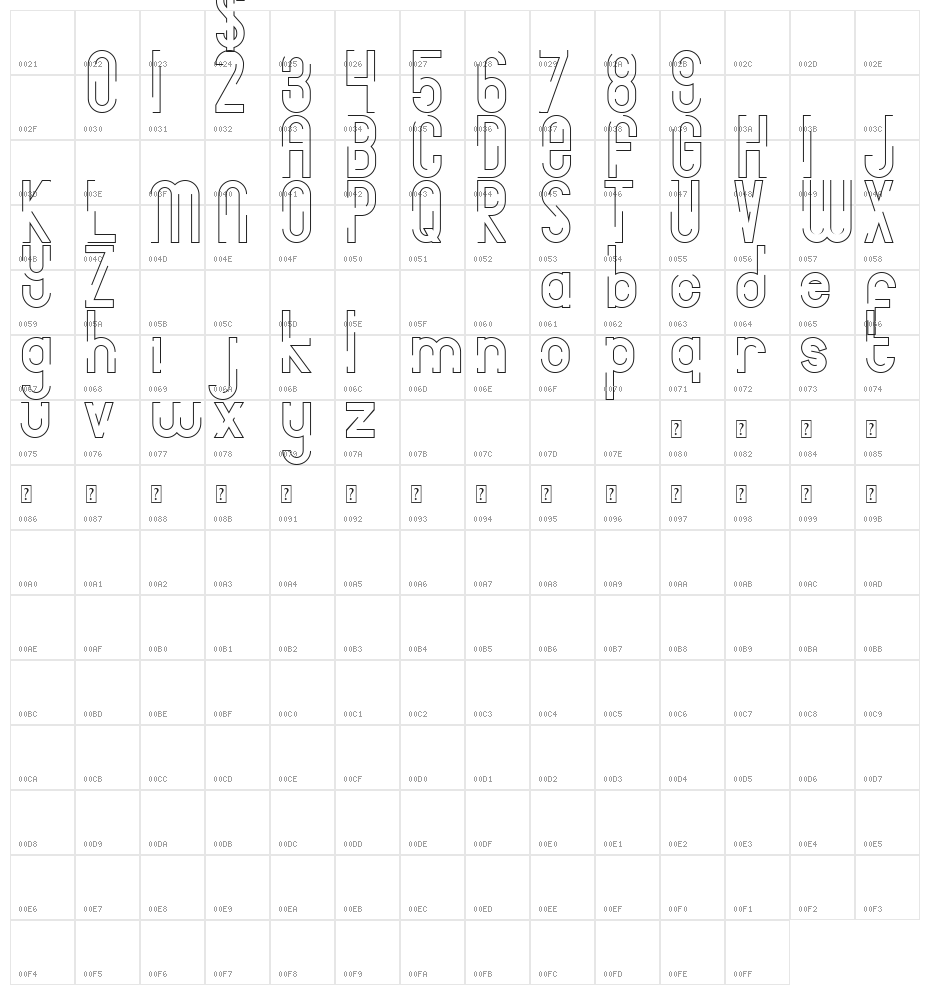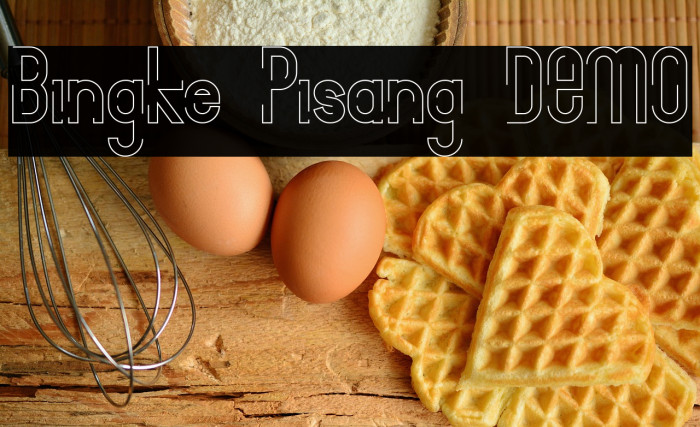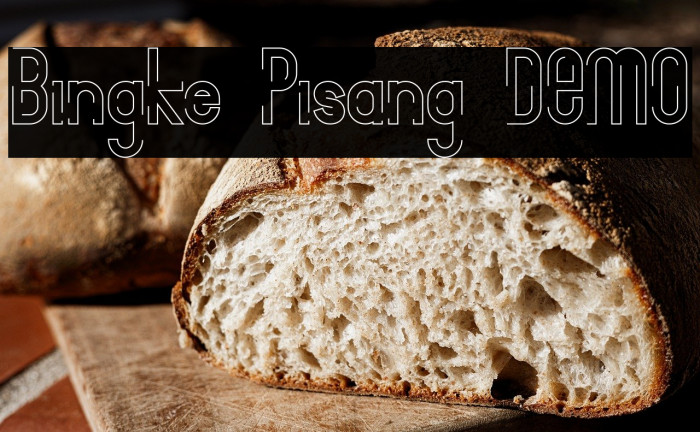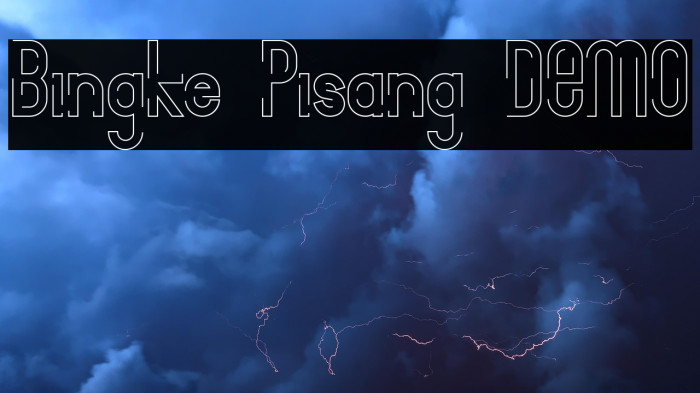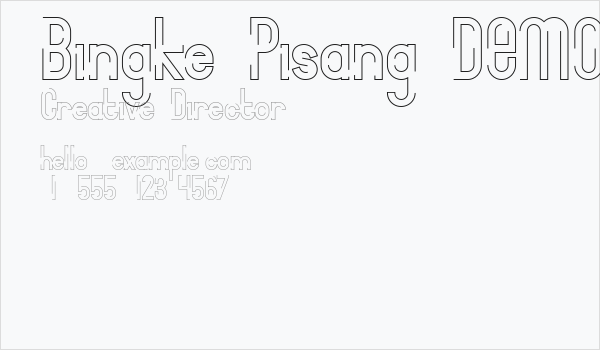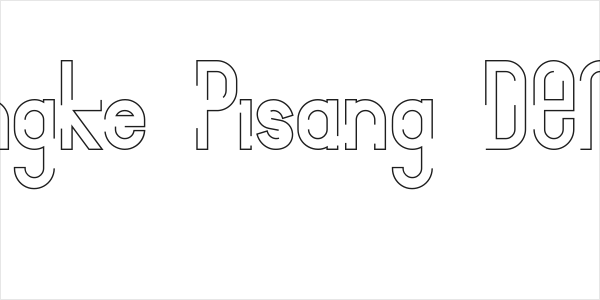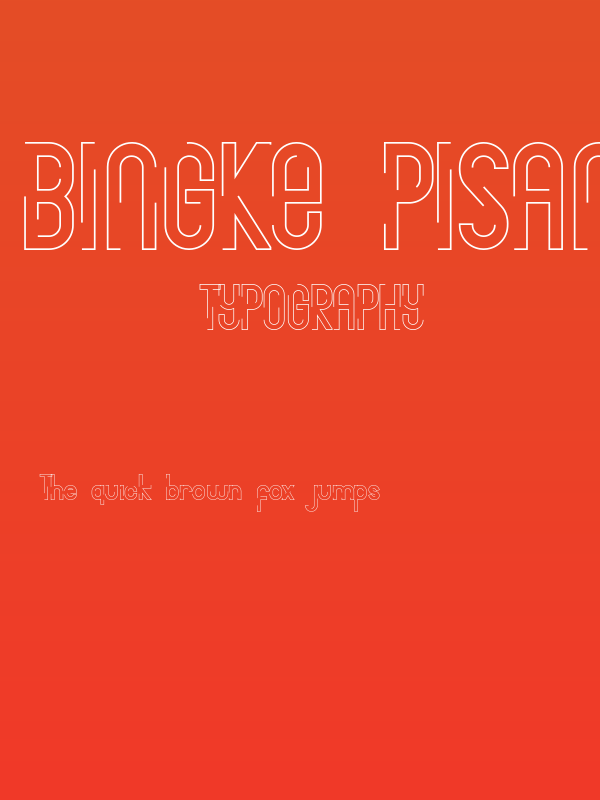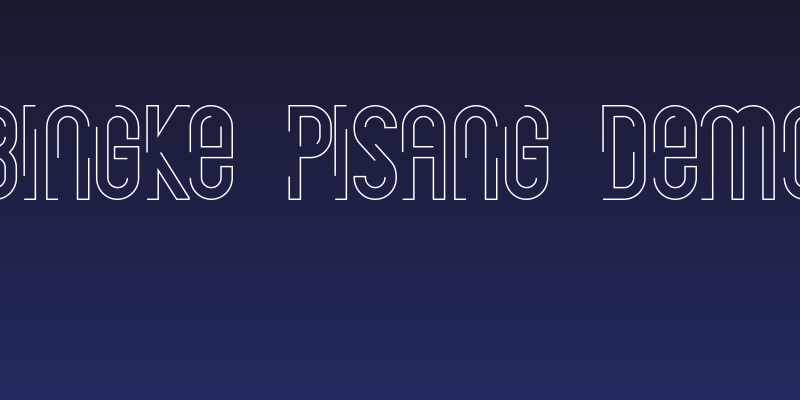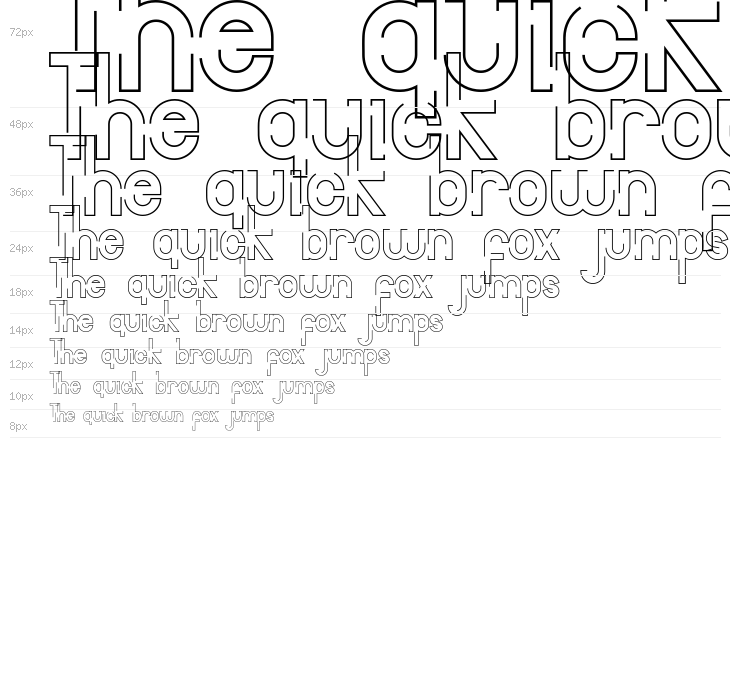
Bingke Pisang DEMO Font
Bingke Pisang DEMO Description
This font features a unique, outlined style with a modern and geometric appearance. The characters are constructed with a consistent line weight, creating a clean and minimalistic look. The uppercase and lowercase letters maintain a uniform height, contributing to a cohesive design. The numerals and special characters follow the same stylistic approach, ensuring a harmonious overall appearance. The font's open structure and clear lines make it suitable for various design applications, offering a contemporary and stylish aesthetic.
Proposed ProjectsIdeal for branding, posters, headlines, and digital media where a modern and stylish look is desired.